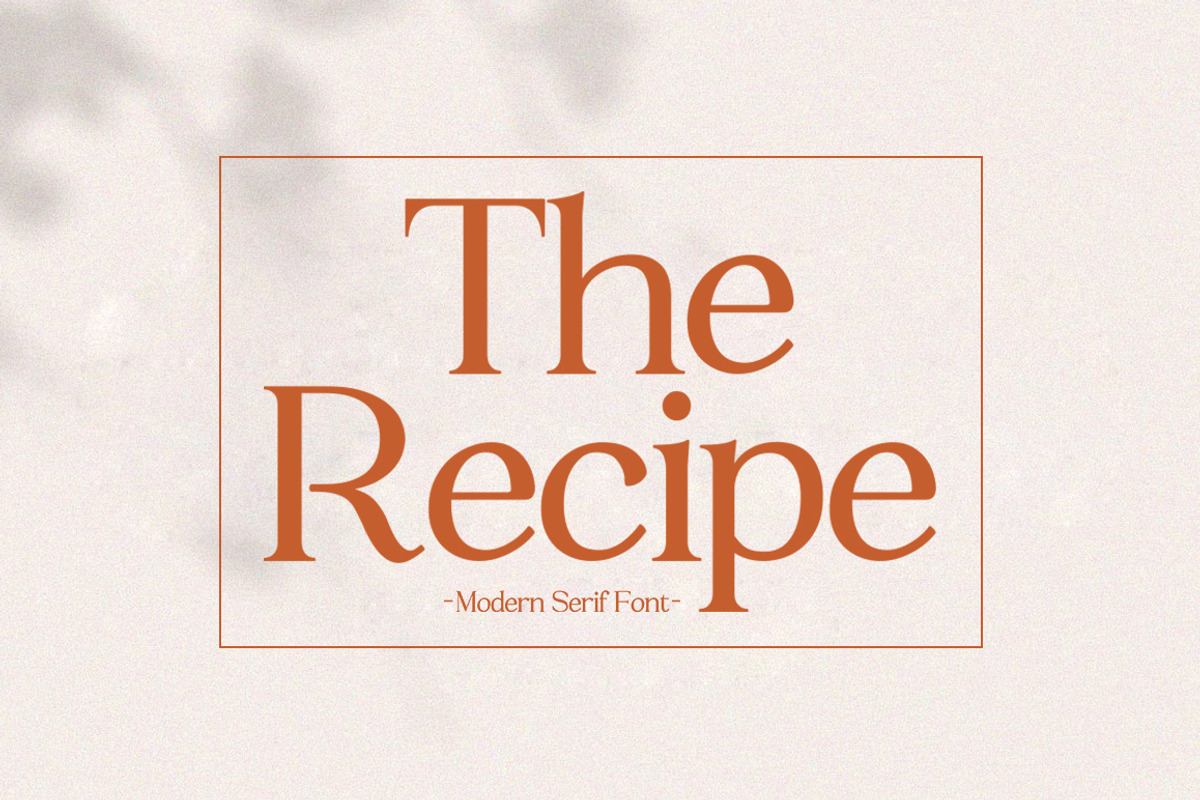
The Recipe - Luxury Serif Font Free Download
The Recipe - Luxury Serif Font Free Download is a high-end, elegant typeface designed to bring sophistication and class to your visual projects. With its clean lines, stylish serifs, and timeless aesthetic, this font is perfect for upscale branding, magazine headlines, packaging, fashion lookbooks, and premium product labels.
Crafted with a refined sense of style, The Recipe exudes luxury without being overly ornate. It's a modern serif with subtle details that create a powerful presence on both print and digital media. This font is versatile enough to be used for minimalist layouts or bold statement designs.
It supports multilingual characters and includes stylistic alternates that offer creative flexibility. Whether you're designing a logo for a luxury brand or a cover for a gourmet cookbook, this font delivers a professional and polished look.